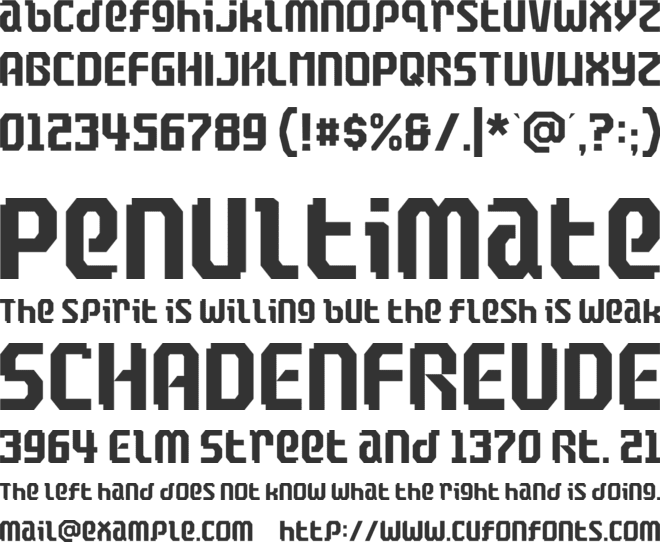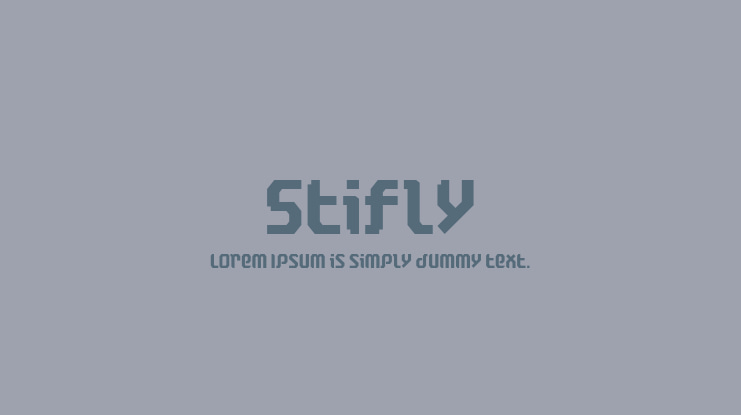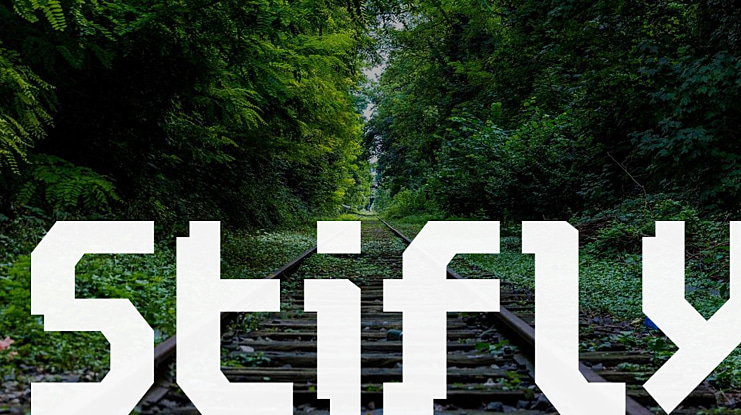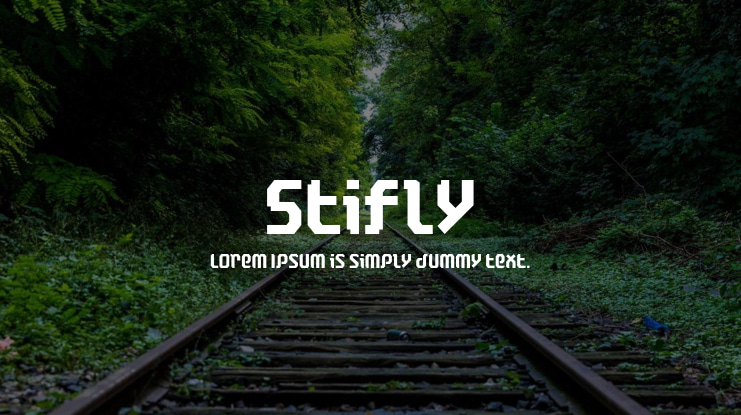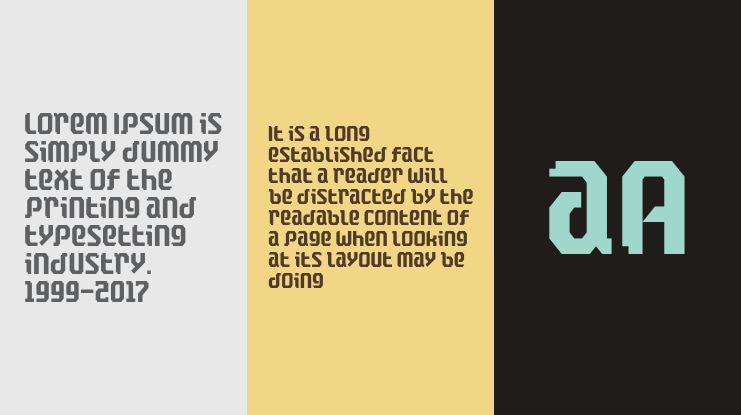
Stifly Font
Experience the modern pixelated sans font that draws inspiration from strong techno block characters, resulting in a futuristic look. Its distinct grid structure perfectly blends the past and the future, striking a harmonious balance between simplicity and complexity. With this font, your words are guaranteed to make a statement in any context.